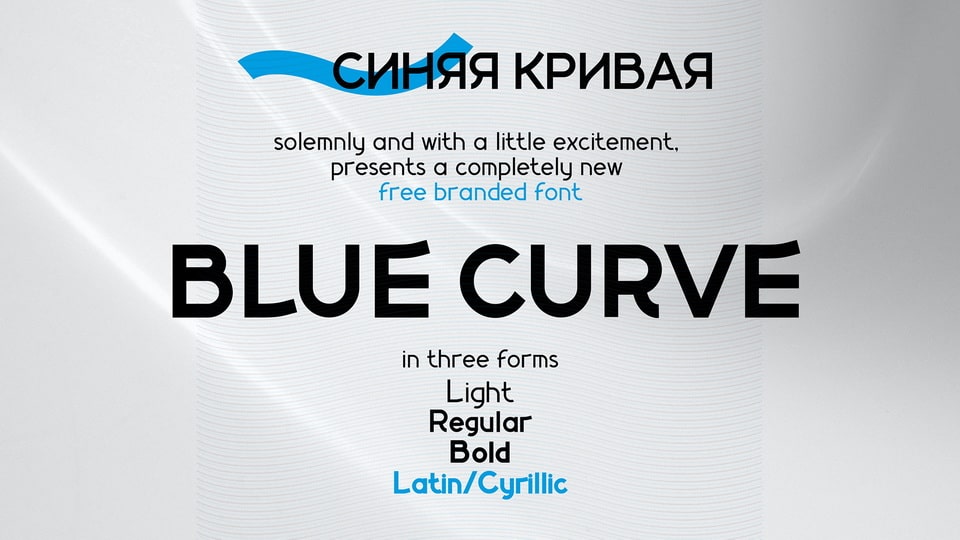
Download Blue Curve font, a new grotesque typeface with a bold yet playful personality. Blue Curve font needs to be in your collections and is perfect for your next design projects.
Designer: Dimitri Antonov